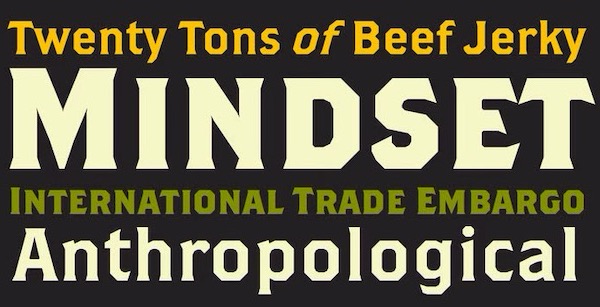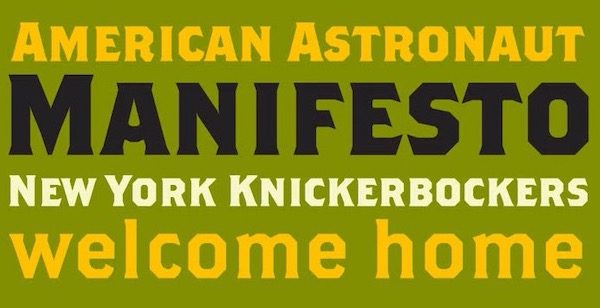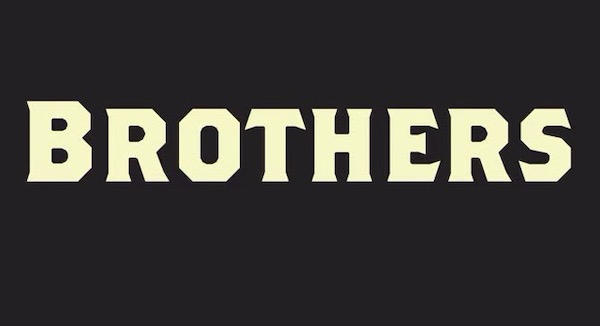
Brothers is a great old vintage display font family that was designed by John Downer and published by Emigre. It consists of four stunning styles and family package options.
Brothers Display Font
Designer by John Downer, Publisher by Emigre